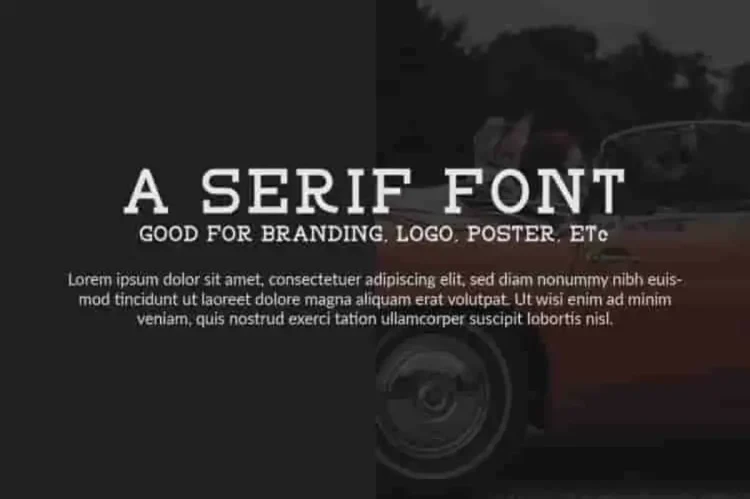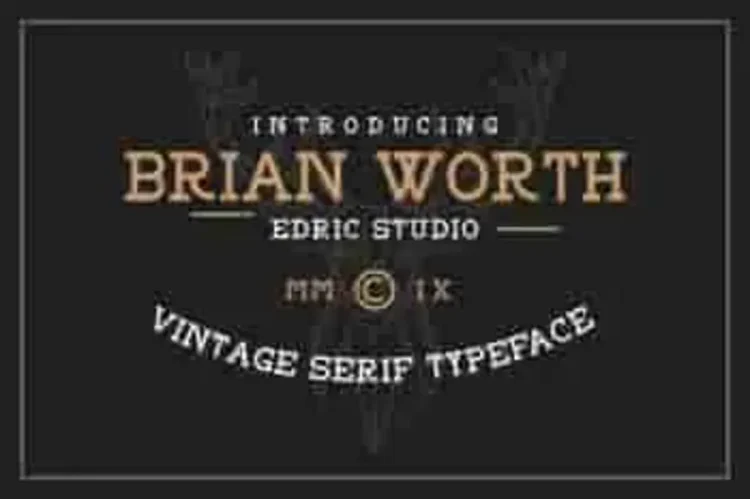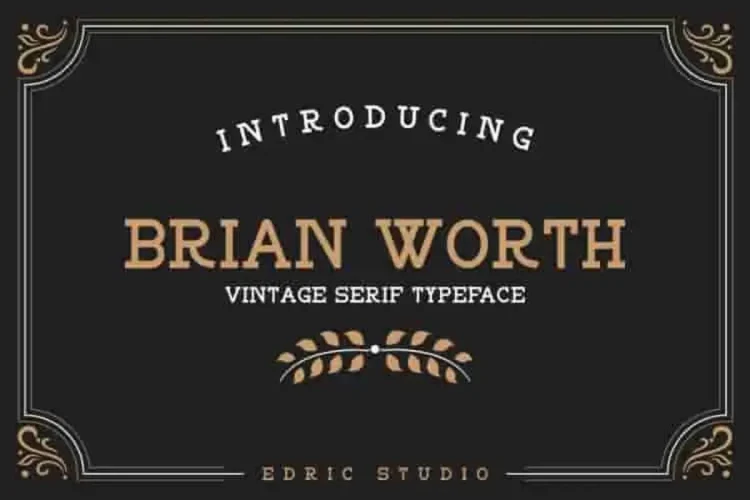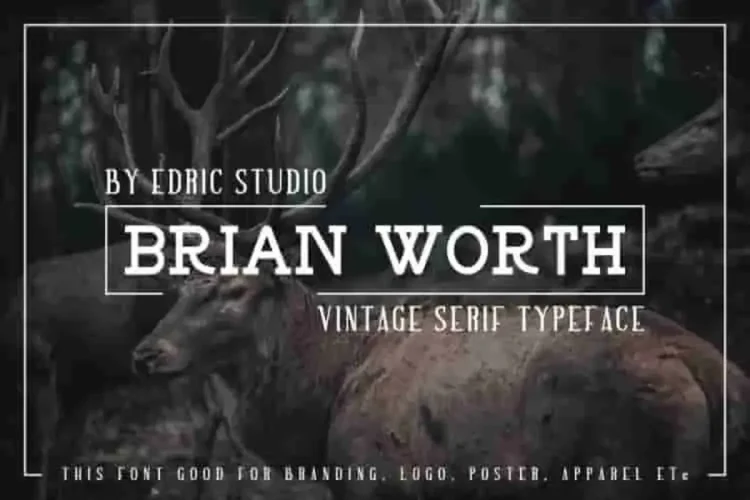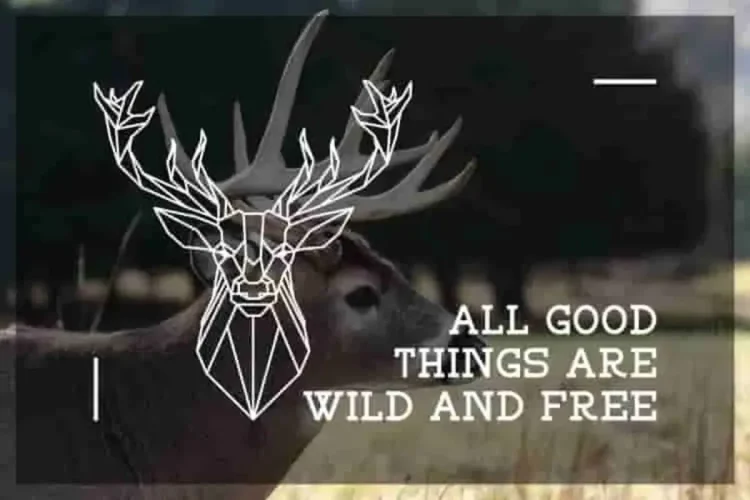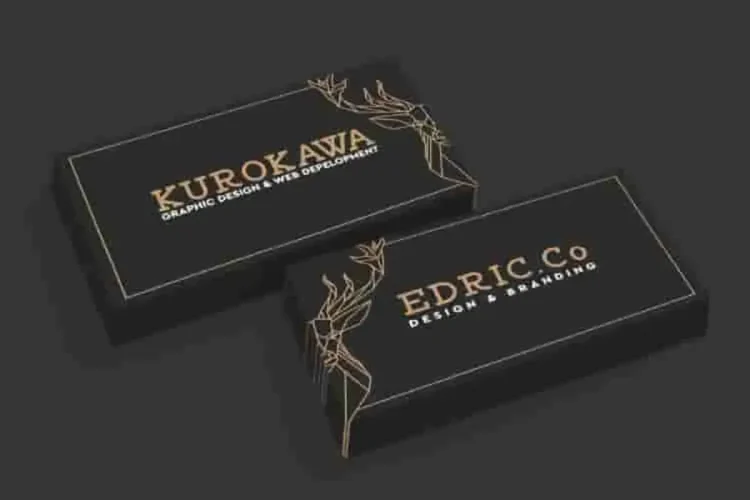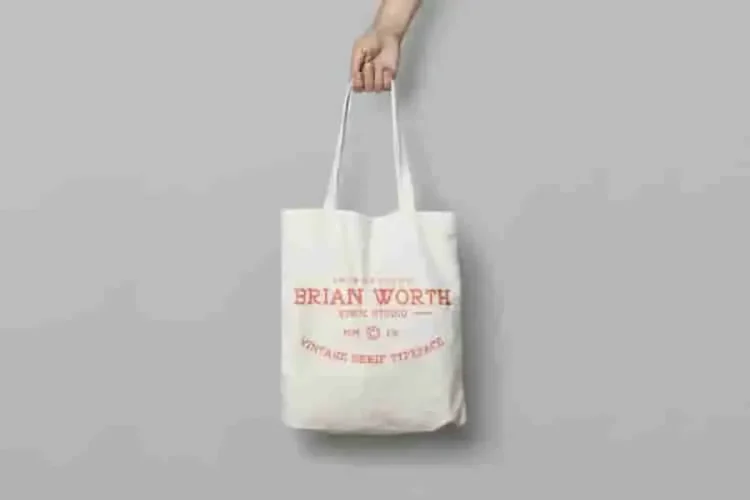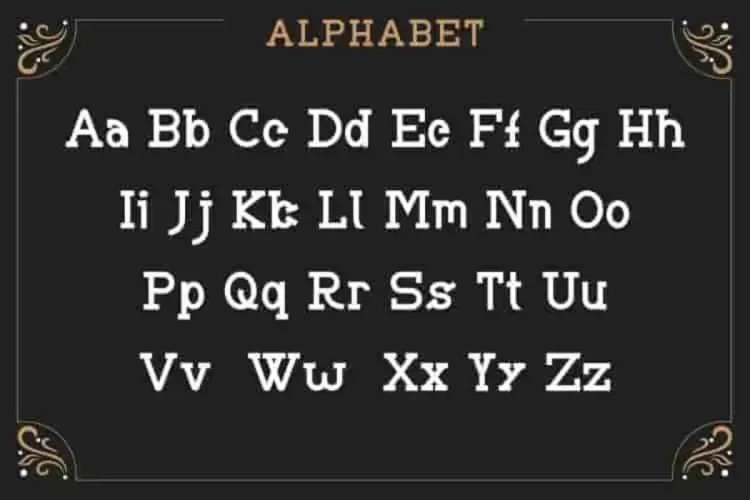
BRIAN WORTH – Vintage Font
BRIAN WORTH – Vintage Font A display serif font. Great for many things : cafe signage, food menu flyer, poster, label, sticker, even branding for a retro corporate logo brands.
🖋 BRIAN WORTH comes with TWO expressive styles: Regular and Outline.
1. Regular:
Bold, clean, and structured—perfect for vintage logos, posters, and café signage. This style delivers a strong serif presence with a retro charm, making it ideal for designs that need to stand out while remaining classic and readable.
2. Outline:
A stylized, hollow version of the Regular—great for layered typography, labels, or standout headlines. It brings dimension and visual interest, perfect for nostalgic themes or when you want to add a bold graphic twist.
Whether you’re a designer, brand builder, or creative enthusiast, BRIAN WORTH gives your projects that handcrafted, old-school flair—with modern usability.
Why BRIAN WORTH stands out:
• 🖋 Vintage sans serif design with typewriter influence
• 🖋 Includes 2 styles: Regular & Outline
• 🖋 Perfect for signage, branding, food packaging, posters, stickers, and more
Its minimalist letterforms, with subtle vintage quirks, make BRIAN WORTH ideal for brands looking to stand out with a hint of history. From rustic coffee shops to classic product packaging, this font delivers both style and substance.